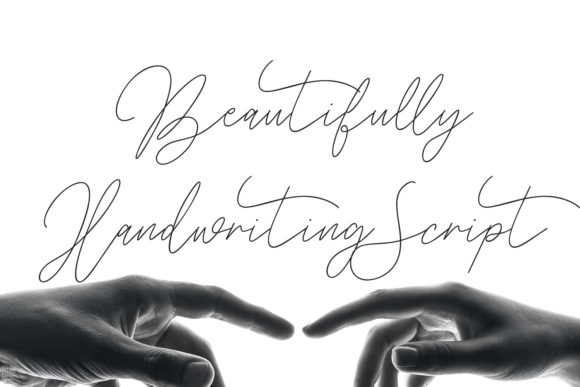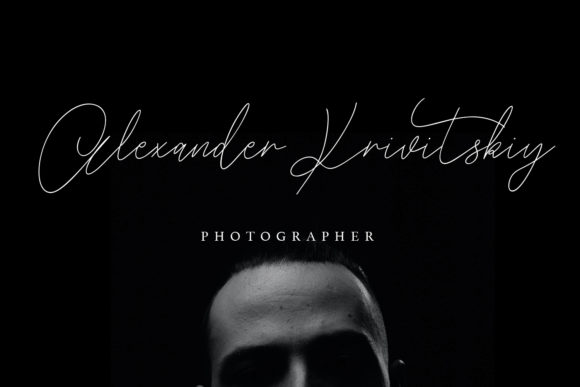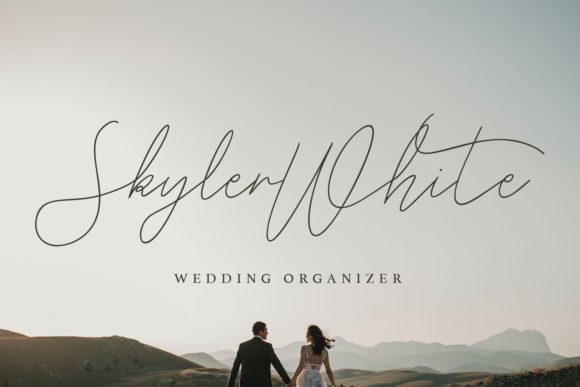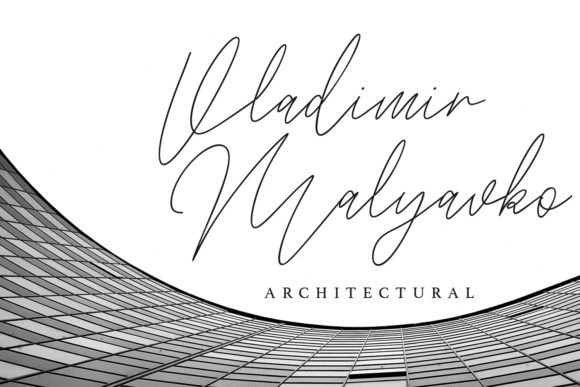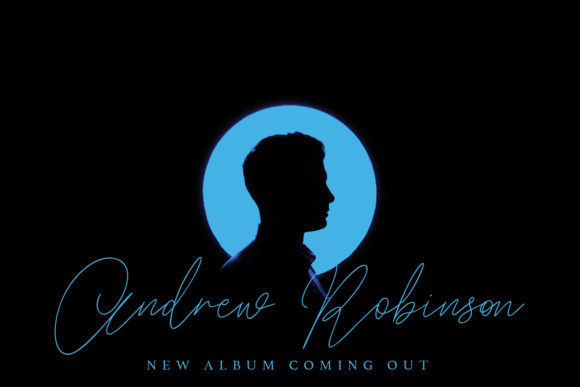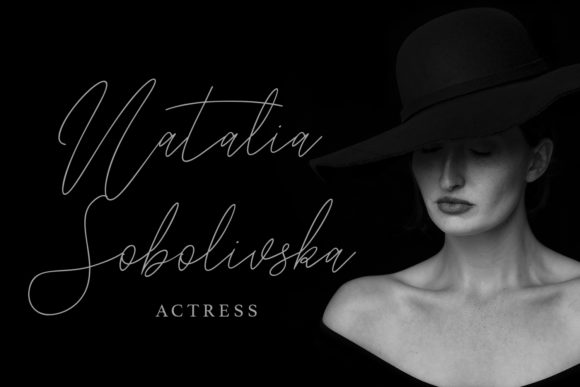
The Perfect Script: Balleys Font
Have you ever been scrolling through a beautiful wedding invitation or a heartfelt thank-you card and thought, ‘Wow, this font is stunning’? I’m sure many of us have experienced that moment of design wonder. For designers, finding the perfect font can be a game-changer – it’s the difference between a good design and an amazing one.
Enter Balleys Font, a stylish and elegant script font that adds a handwritten touch to any design. Whether it’s a wedding invitation, a quote, or a business card, Balleys Font is the perfect choice. Its versatility and sophistication make it a valuable asset for designers, allowing them to create unique and captivating designs that stand out from the crowd.
Balleys Font Key Features
- Unique Characteristics: Balleys Font features a distinctive, hand-drawn style with subtle flair and elegance, making it suitable for creative and artistic applications.
- Language Support: The font supports a wide range of languages, including Latin, Cyrillic, and Greek alphabets, making it a versatile choice for global design projects.
- Character Count: Balleys Font includes over 800 characters, including uppercase and lowercase letters, numerals, punctuation marks, and special symbols.
Balleys Font Review
I recently had the chance to work with the Balleys font, and I have to say, it’s been a mixed bag for me. Let’s start with the good stuff ✨
- The Balleys font has a unique, playful feel that’s perfect for titles and headings. Its rounded edges and quirky charm make it a great choice for modern designs.
- The font is highly legible, even at small sizes, making it a great option for body text.
- The Balleys font comes in a range of weights and styles, giving designers plenty of flexibility when it comes to choosing the perfect look for their project.
Now, onto the not-so-good stuff ⚠️
- The Balleys font can feel a bit overused, especially in certain design communities. If you’re looking for a font that’s going to stand out from the crowd, you might want to consider something else.
- The font’s rounded edges can sometimes make it difficult to read in certain contexts, especially when used for large blocks of text.
Overall, I’d say the Balleys font is a solid choice for designers who are looking for a modern, playful feel. Just be aware of its limitations and use it thoughtfully to get the most out of it.
Tips for Getting the Most Out of Balleys Font
Use Balleys font for creative and artistic projects, such as wedding invitations, baby shower invitations, and social media graphics.
Combine Balleys font with bold and colorful graphics to create eye-catching designs.
Experiment with different font sizes and styles to add depth and visual interest to your designs.
Balleys font is ideal for:
Baby shower invitations and decorations
Social media graphics and
Alternatives to Balleys Font for Designers
Playfair Display is a luxurious, high-end font perfect for creating a sense of sophistication and elegance. It’s ideal for use in luxury branding, high-end advertising, and premium packaging. Playfair Display has a more refined and ornate feel compared to Balleys Font, making it suitable for applications where a touch of luxury is desired.
Great Vibes is a modern, elegant script font that’s perfect for creating a sense of warmth and approachability. It’s ideal for use in branding, advertising, and packaging where a friendly and inviting tone is desired. Great Vibes has a more fluid and connected feel compared to Balleys Font, making it suitable for applications where a sense of personality is key.